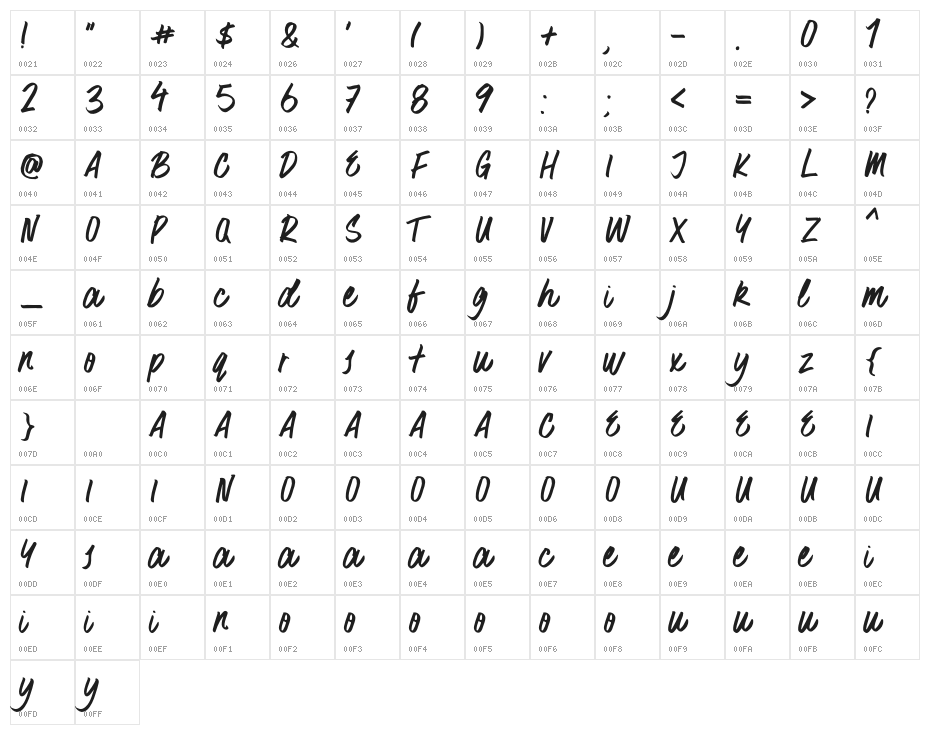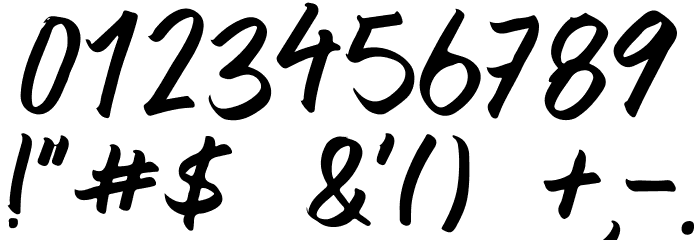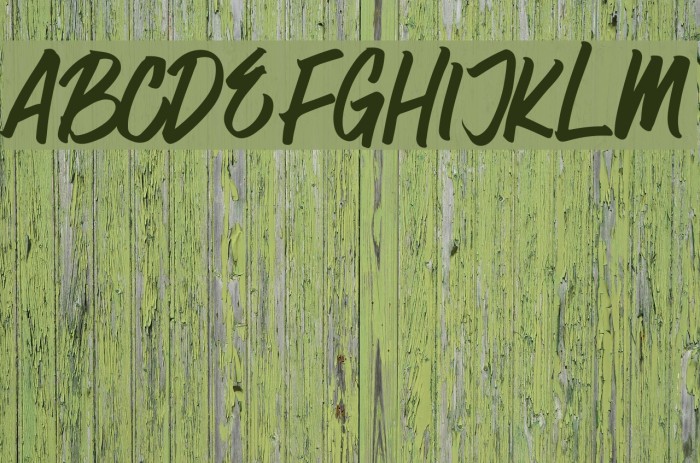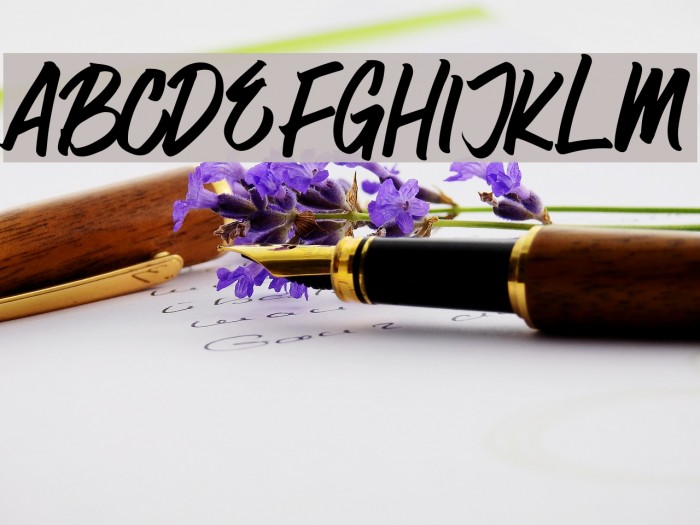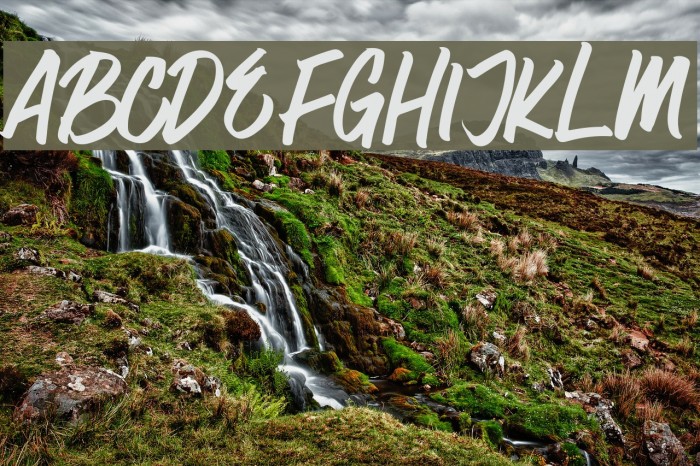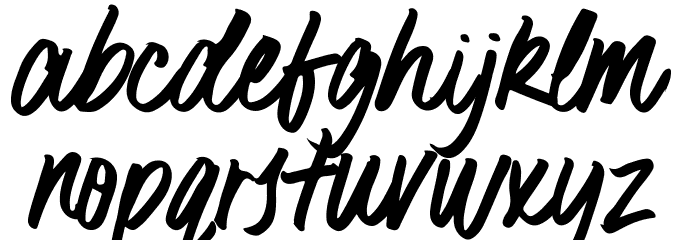
Surfer Bay Font
Surfer Bay Description
This font exudes a lively and energetic vibe, characterized by its bold, brush-like strokes that give it a handwritten appearance. The letters are slightly slanted, adding a dynamic flow to the text. The uppercase and lowercase letters maintain a consistent style, with rounded edges and varying thickness that suggest a casual, informal tone. The numbers and special characters are crafted with the same brush-like quality, ensuring uniformity across all characters. This font is perfect for projects that require a personal touch, such as invitations, posters, or branding materials that aim to convey a sense of creativity and spontaneity.
| Proposed Projects | Ideal for creative projects like invitations, posters, and branding materials. |